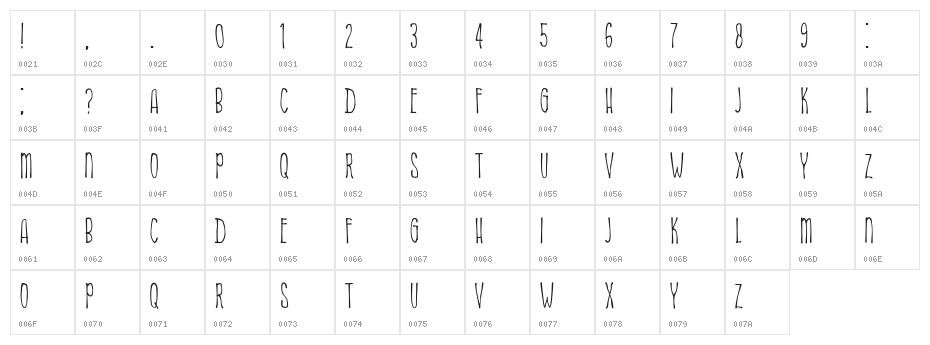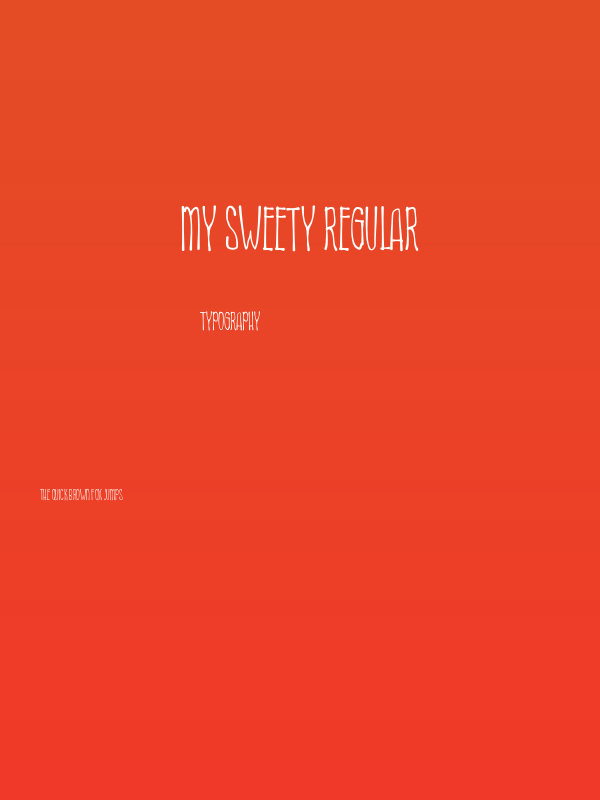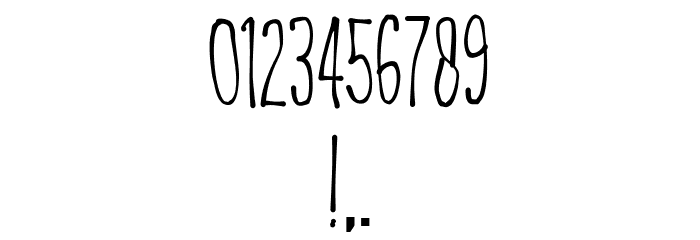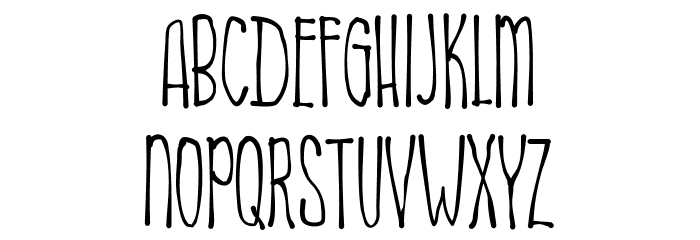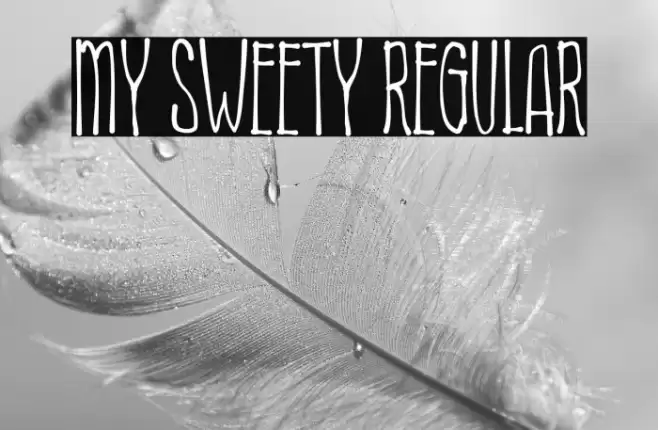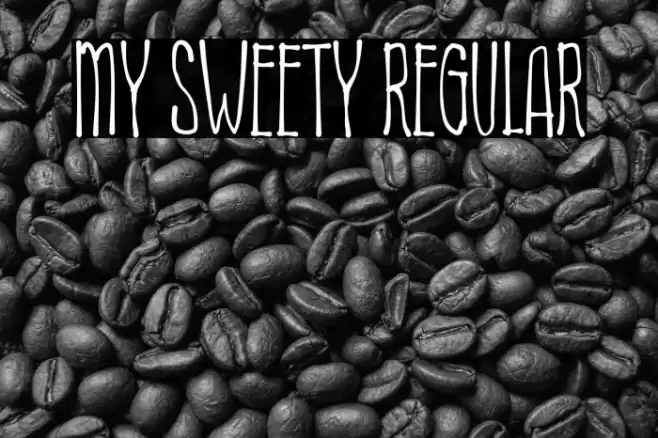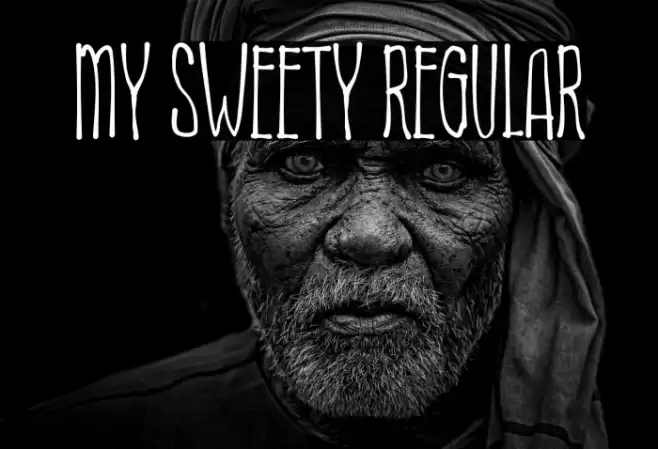
My Sweety Regular Font
My Sweety Regular Description
A tall, narrow, handwritten-style font with playful, irregular strokes and rounded terminals, giving it a whimsical and friendly appearance. The characters are monoline with consistent stroke thickness and slightly varying baselines, enhancing its casual, informal feel.
| Width | Condensed |
| Overall Style | Playful, Casual, Whimsical |
| Use Case | Headlines, Short text, Decorative uses |
| Proposed Projects | Greeting cards, children's books, playful branding, invitations, social media graphics. |